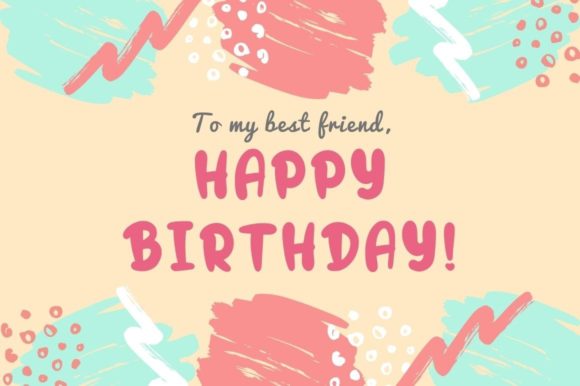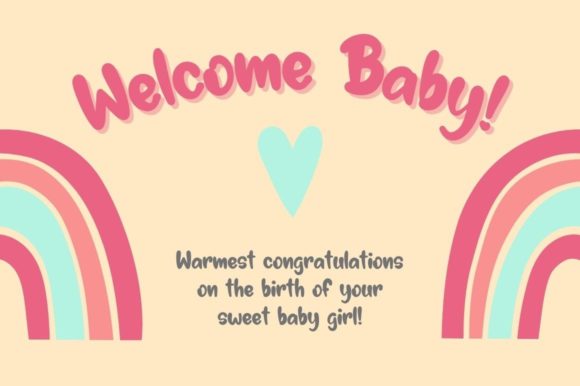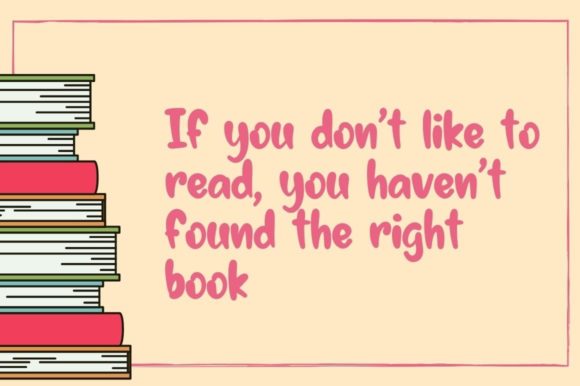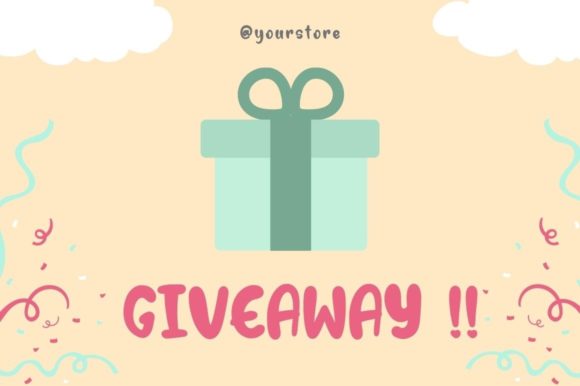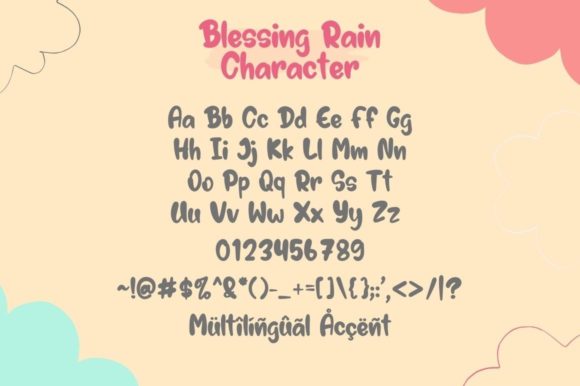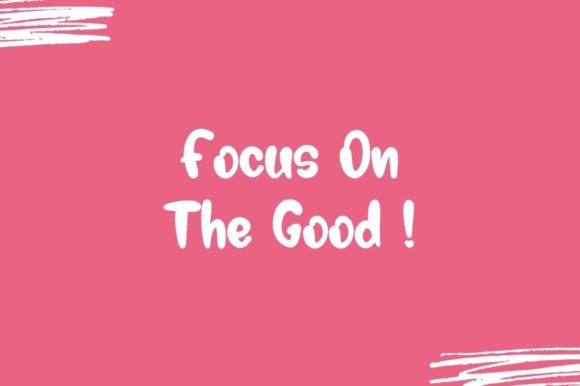
Blessing Rain Font: The Playful and Adorable Display Font for Your Creative Projects
Are you looking for a font that can add a touch of playfulness and adorability to your creative projects? Look no further than the Blessing Rain Font! This display font is perfect for designers and crafters who want to create eye-catching and engaging designs for children’s products, women’s products, book covers, logos, branding, and business needs.
What Makes Blessing Rain Font So Special?
Blessing Rain Font is a unique and charming display font that is sure to make your designs stand out. Its playful and adorable style makes it perfect for projects that require a touch of whimsy and fun. The font is very versatile and can be used for a wide range of creative projects, from children’s book covers to logos and branding for businesses.
Perfect for Children’s and Women’s Products
If you’re designing products for children or women, Blessing Rain Font is an excellent choice. The font’s playful and adorable style is sure to appeal to kids and adults alike. You can use it to create fun and engaging designs for:
- Children’s book covers
- Kids’ party invitations
- Women’s fashion branding
- Children’s clothing and accessories
- Women’s lifestyle products
Ideal for Book Covers and Logos
Blessing Rain Font is also perfect for book covers and logos. The font’s unique and charming style makes it stand out from other fonts, ensuring that your book cover or logo gets noticed. You can use it to create:
- Eye-catching book covers for children’s books, romance novels, and lifestyle books
- Unique and memorable logos for businesses and brands
- Stunning branding materials for companies and products
Adding Blessing Rain Font to Your Creative Projects
- Use it as a headline font to add a touch of playfulness and whimsy to your designs
- Pair it with other fonts to create a unique and interesting contrast
Why Designers and Crafters Love Blessing Rain Font
Designers and crafters love Blessing Rain Font for its unique and charming style. Here are some reasons why:
- It’s perfect for creating eye-catching and engaging designs
- It’s versatile and can be used for a wide range of creative projects
- It’s easy to use and pairs well with other fonts
- It’s a great way to add a touch of playfulness and whimsy to designs
In conclusion, Blessing Rain Font is a beautiful and versatile display font that is perfect for designers and crafters who want to create eye-catching and engaging designs. Its playful and adorable style makes it perfect for children’s products, women’s products, book covers, logos, branding, and business needs. With its ease of use and versatility, Blessing Rain Font is a great addition to any designer’s or crafter’s toolkit.